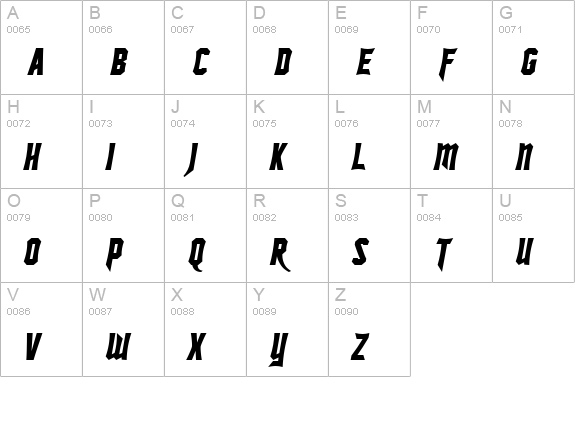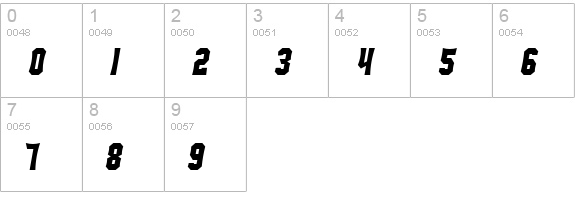
SF Ironsides Bold Italic Font Details
SF Ironsides Bold Italic is a strong, high-contrast, italic variant in the SF typeface family \xE2\x80\x94 well suited to headlines, attention-grabbing titles, and strong calls-to-action.
SF Ironsides Bold Italic is a striking and modern font that exudes confidence and strength. Its bold and italicized design adds a touch of elegance and flair to any design project. With its sharp edges and clean lines, this font is perfect for capturing attention and making a bold statement. This font is not only visually appealing but also highly versatile, making it suitable for a wide range of design purposes. Whether you're creating eye-catching headlines, designing logos, or crafting impactful marketing materials, SF Ironsides Bold Italic will help you stand out from the crowd. And the best part? SF Ironsides Bold Italic is absolutely free to download at FontsMarket.com. This means that you can easily access and use this font without breaking the bank. So, no matter the size of your budget, you can still create stunning designs and make a lasting impression. Download SF Ironsides Bold Italic today and unleash your creativity with this exceptional typeface. Whether you're a professional designer or simply a creative enthusiast, this font will be a valuable addition to your collection. So why wait? Take advantage of this opportunity and let SF Ironsides Bold Italic elevate your designs to new heights.